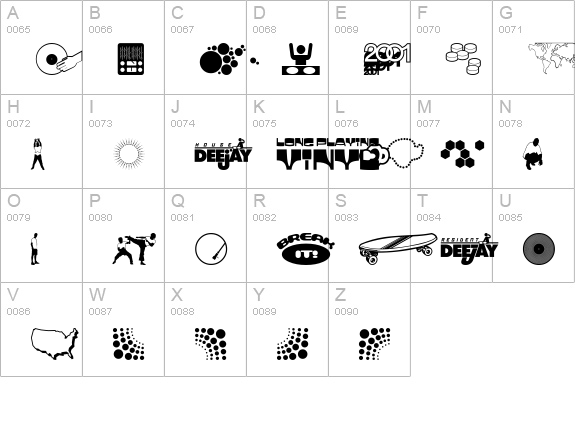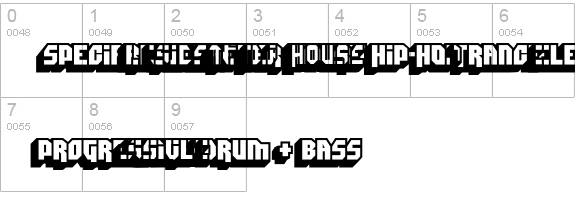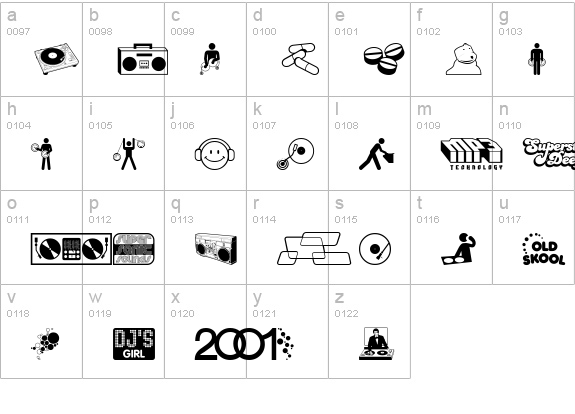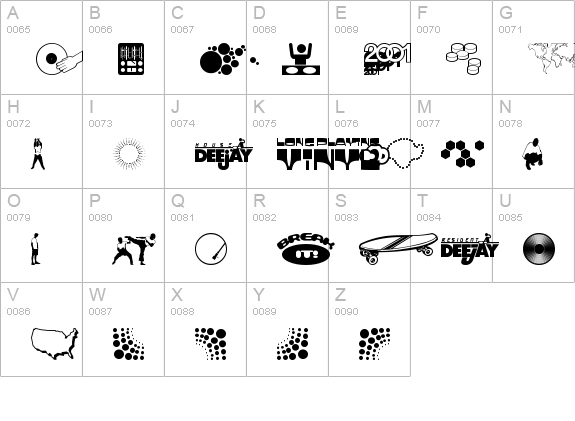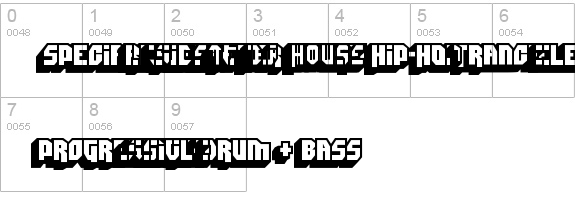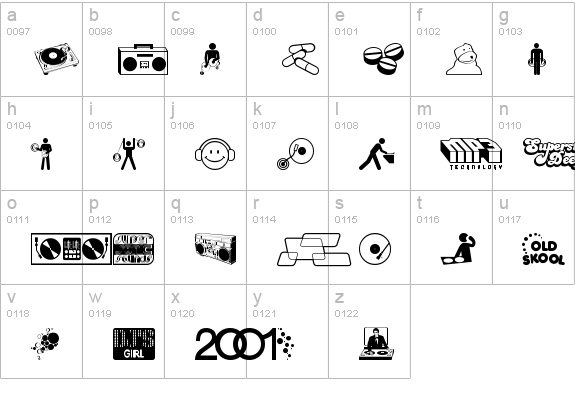
Deejay Supreme font is a modern and stylish typeface that exudes a sense of energy and sophistication. With its sleek lines and bold curves, this font is perfect for making a statement in your designs. Whether you're creating a flyer for a trendy nightclub or designing a sleek logo for a music festival, Deejay Supreme will add a touch of flair to your projects. The best part? Deejay Supreme font is available for free download at FontsMarket.com. This means you can easily access this eye-catching font and use it in your designs without breaking the bank. Don't miss out on the opportunity to elevate your projects with the dynamic and versatile Deejay Supreme font. Download it now and let your creativity shine!